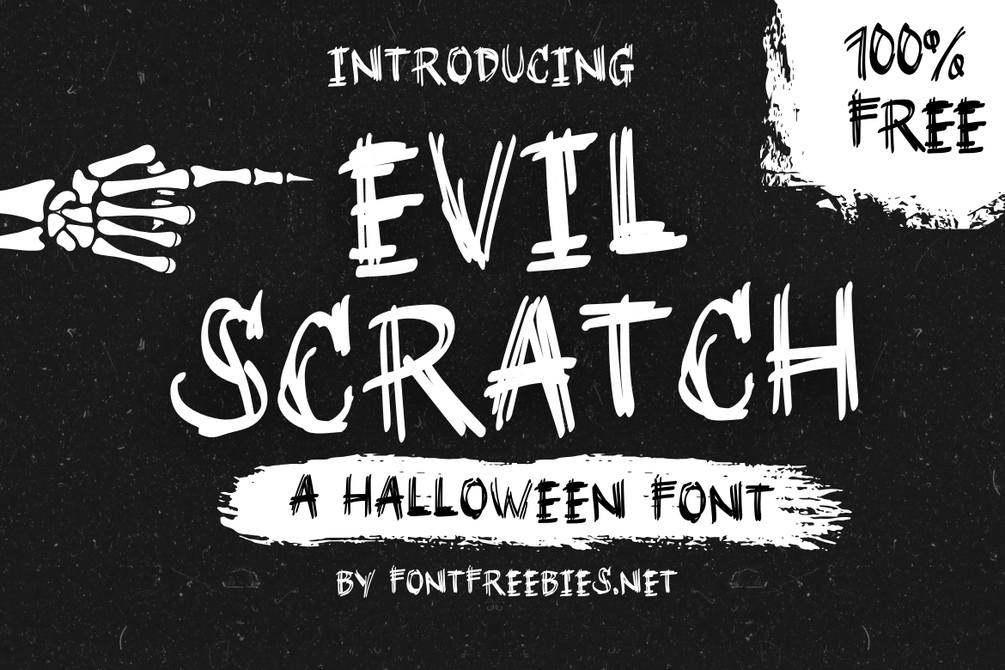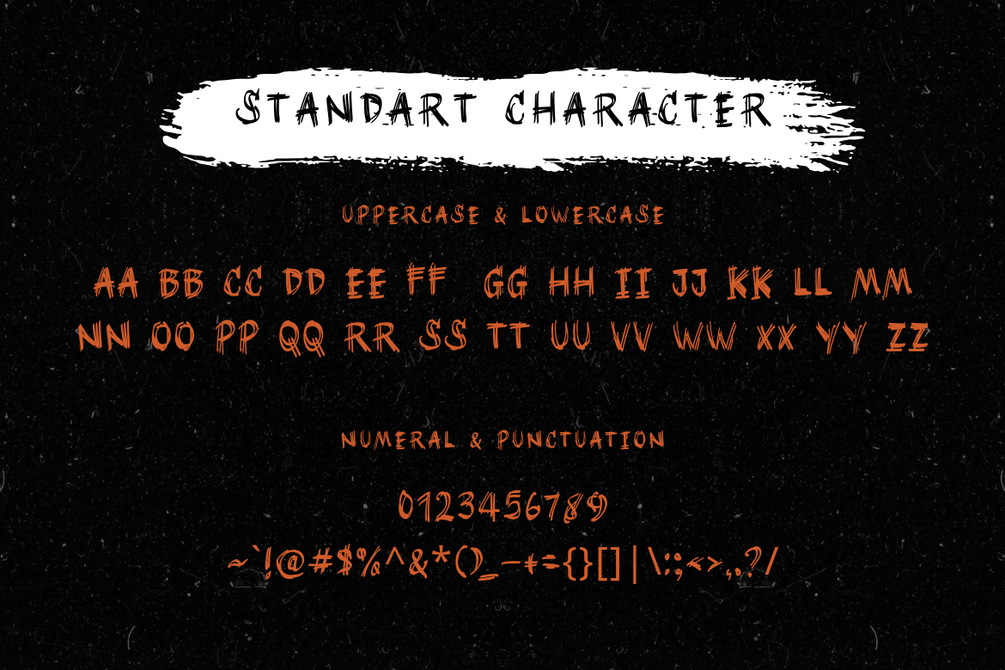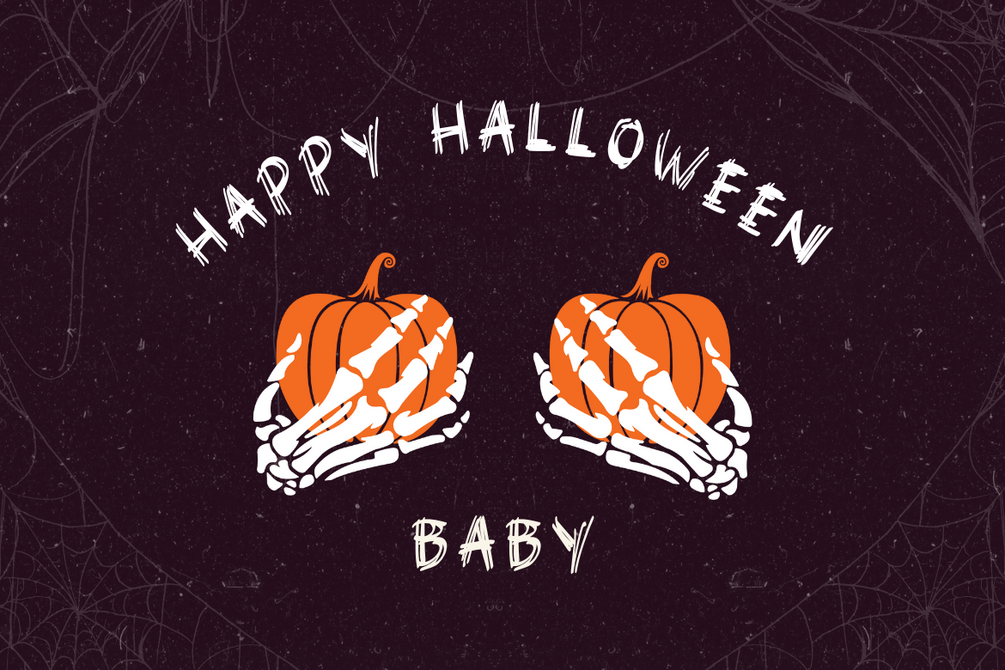
Evil Scratch - A Halloween Font
Evil Scratch is a hand-drawn Halloween font that mimics the look of claws or nails scratching across the surface. Perfect for Halloween invitations, event flyers, and social media graphics, this free font adds a spooky, raw touch to any design.